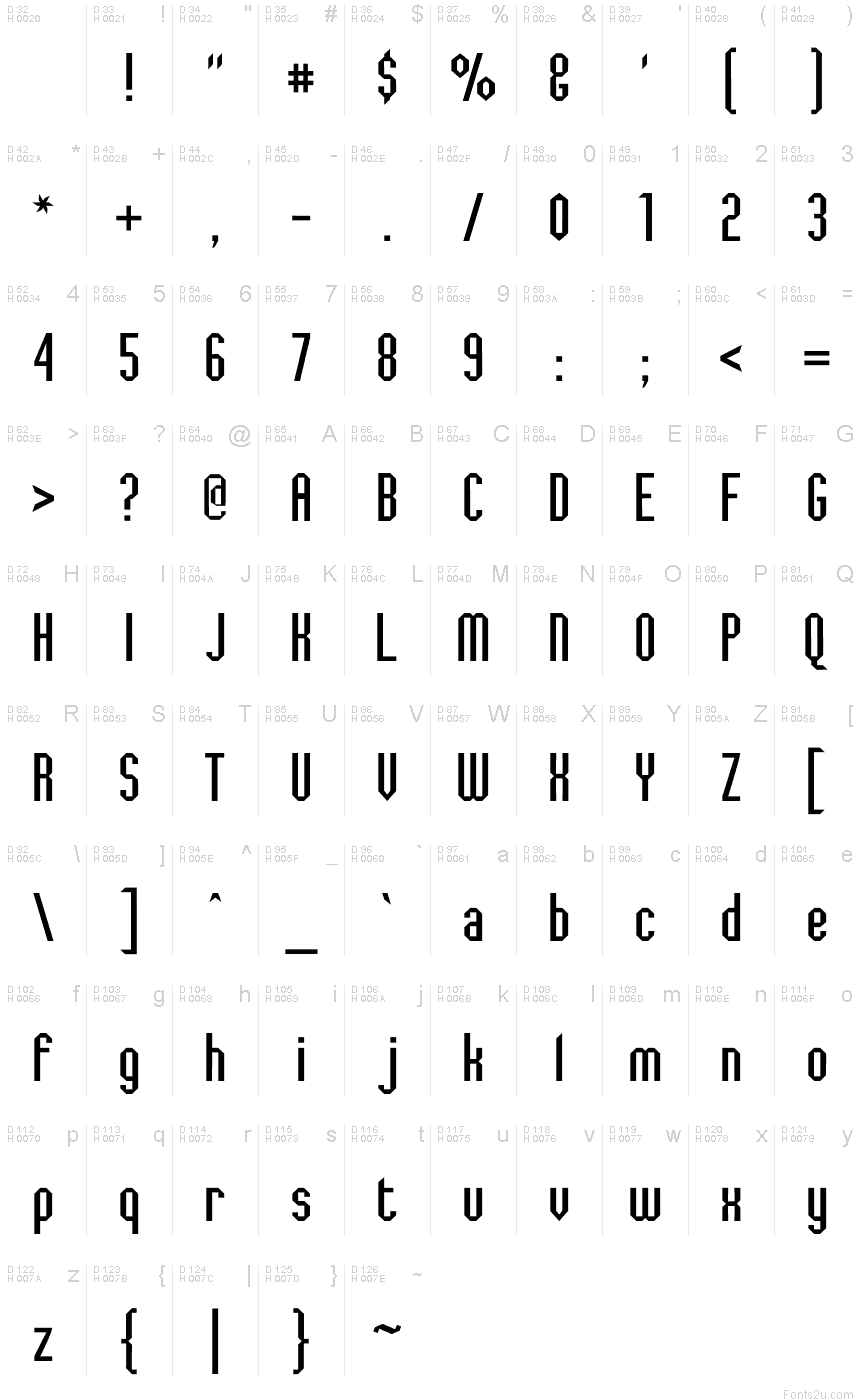
Jagged Dreams
Jagged Dreams font by Graham Meade is a free techno display typeface with a tense, angular energy that feels wired to the future. Its tall, compressed letters, clipped corners, and squared curves give every word a sharp, digital crackle, like neon light reflected on metal. Despite the edgy geometry, the spacing stays even and readable, so short lines of text feel punchy rather than chaotic.
Using Jagged Dreams, titles and wordmarks snap to attention on sci‑fi posters, gaming covers, EDM flyers, tech event branding, and experimental zines. This free font also works beautifully for UI headers and stream overlays where you want a sleek, futuristic edge. Try pairing Jagged Dreams with a simple grotesque sans for small supporting text, and let this jagged, electric voice handle the headlines at larger sizes.